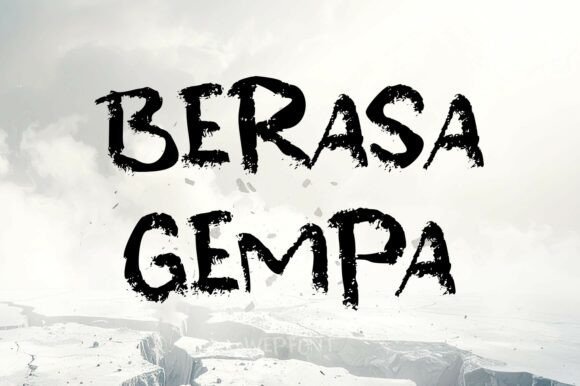
Unleash the Power of the Earth: Discovering Berasa Gempa Font
Have you ever been in the midst of a creative storm, where ideas pour in like a tidal wave and your imagination runs wild? For designers, those moments are a blessing in disguise, fueling our passion to bring unique visions to life. And what better way to capture the essence of that unbridled energy than with a font that embodies the raw power of the earth?
Enter Berasa Gempa Font, a display font that echoes the force of an earthquake, manifesting an ambiance of tenacity and undaunted spirit. This singular font is designed to fortify your creations with a time-worn charm, making it the perfect choice for projects that require a grittier, indefinable edge. With Berasa Gempa Font, designers can unleash their creativity and craft bold statements that leave a lasting impression.
Berasa Gempa Font Key Features
- Font Family: Berasa Gempa Font is a unique, handwritten font designed to evoke a sense of Indonesian culture and style.
- Resolution: The font is designed for high-resolution displays, ensuring crisp and clear text rendering at 300 DPI and above.
- Unique Characteristics: Berasa Gempa Font features a distinctive, hand-drawn aesthetic with subtle imperfections, giving it a warm and organic feel.
- Language Support: The font supports a wide range of languages, including Latin, Cyrillic, and Devanagari scripts, making it a versatile choice for multilingual designs.
Berasa Gempa Font Review
Overall, I think the Berasa Gempa Font has a lot of potential. It’s a unique and eye-catching font that’s perfect for making a statement in your designs. ✨ Here are some of its strengths:
- Its bold and playful nature makes it perfect for headlines and titles.
- The font’s irregularities give it a human touch that’s hard to find in other fonts.
- It’s available in a variety of styles, including bold, light, and regular, making it easy to customize.
However, there are some limitations to consider. ⚠️ Here are a few:
- The font may be too loud or overpowering for smaller text or body copy.
- The irregularities that make it unique can also make it difficult to read in certain situations.
- The font may not be suitable for formal or professional designs.
Overall, I think the Berasa Gempa Font is a great addition to any designer’s toolkit. While it may have some limitations, its unique charm and versatility make it a great choice for a wide range of designs.
Tips for Getting the Most Out of Berasa Gempa Font
Here are some tips for getting the most out of Berasa Gempa Font:
- Pair the Berasa Gempa Font with other fonts to create a unique and visually appealing design.
- Use the Berasa Gempa Font to add a touch of elegance and sophistication to your design.
Alternatives to “Berasa Gempa Font”
Pacifico is a beautiful, elegant script font that works well for creating a warm and inviting atmosphere. It’s perfect for use in branding, advertising, and other design projects where a touch of sophistication is needed.
Compared to Berasa Gempa Font, Pacifico has a more refined and polished look, making it a great choice for high-end designs. While Berasa Gempa Font has a more playful and casual feel, Pacifico is better suited for more formal and professional projects.
Great Vibes is a modern script font that’s perfect for creating a sense of energy and excitement. It’s great for use in headings, titles, and other design elements where a bold and dynamic look is needed.
Compared to Berasa Gempa Font, Great Vibes has a more edgy and contemporary feel, making it a great choice for designs that need to stand out. While Berasa Gempa Font has a more relaxed and casual vibe, Great Vibes is better suited for projects that require a sense of urgency and excitement.